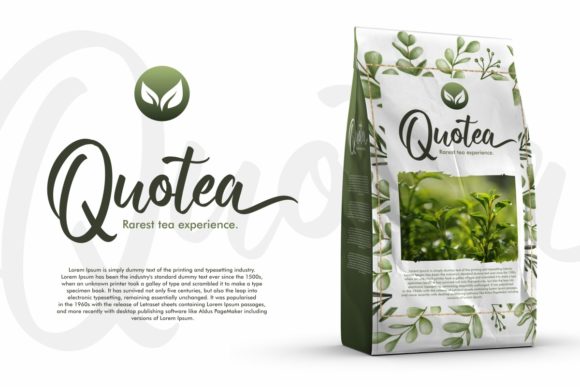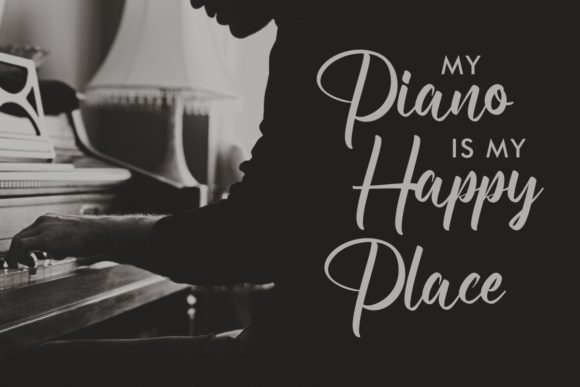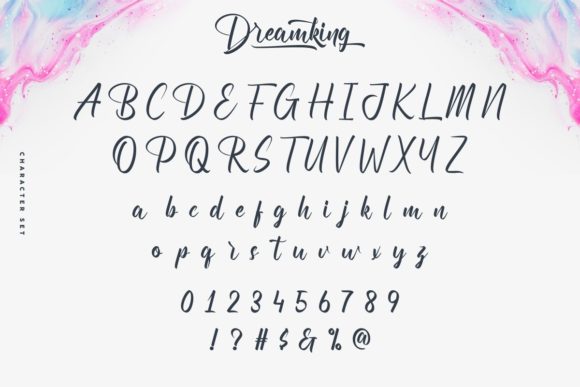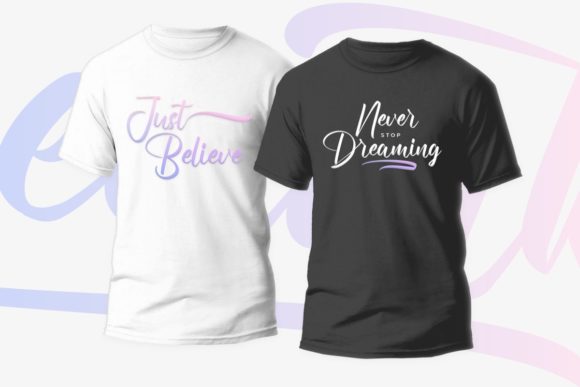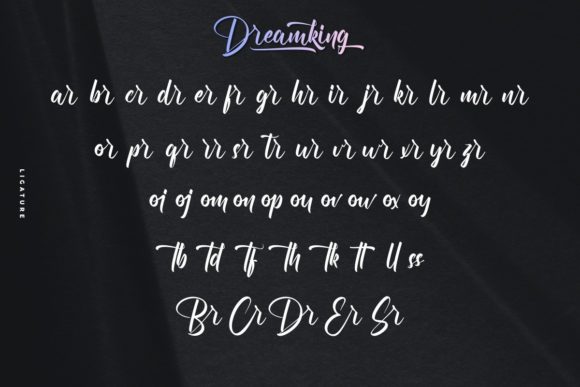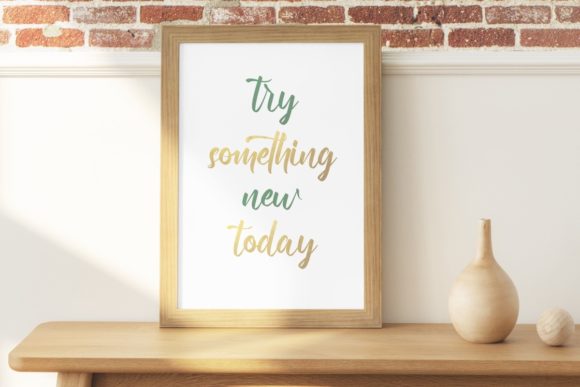
The Dreamking Font: Unlocking Your Creative Potential
There’s nothing quite like the thrill of bringing a creative idea to life. The spark of inspiration, the rush of excitement as you start to sketch out your vision, and the satisfaction of watching it take shape. But sometimes, no matter how hard we try, our designs can feel like they’re missing that special something – a touch of elegance, a dash of whimsy, or a pinch of personality.
That’s where the Dreamking Font comes in. This stunning script font is the perfect addition to any designer’s toolkit, offering a level of detail and craftsmanship that’s simply unmatched. With its PUA encoding, you can access all of the glyphs and swashes with ease, giving you the freedom to create truly unique and eye-catching designs.
Dreamking Font Key Features
- Unique Characteristics: The font features a unique blend of elegant and bold lines, creating a distinctive visual identity that sets it apart from other fonts.
- Kerning and Ligatures: The font includes advanced kerning and ligature pairs, ensuring smooth and even spacing between characters for a professional-looking result.
Dreamking Font Review
Overall, I think the Dreamking Font is an interesting choice for designers looking for a unique, vintage-inspired font. Here are some things that work well:
- ✨ Unique aesthetic: The Dreamking Font has a distinct, retro feel that can add a lot of character to a design. It’s perfect for projects that need a touch of nostalgia or a sense of old-school charm.
- ✨ Good legibility: Despite its vintage vibe, the font is still easy to read, making it suitable for body text or headlines.
- ✨ Versatile: The Dreamking Font comes in a range of weights and styles, allowing designers to experiment with different looks and feels.
- ⚠️ Limited language support: The Dreamking Font may not support all languages, which could be a problem for designers working on multilingual projects.
- ⚠️ Not ideal for small text: The font’s unique style can make it difficult to read in small sizes, so it’s best to use it for headlines or larger body text.
Overall, I think the Dreamking Font is a solid choice for designers who want to add a touch of vintage flair to their projects. While it has some limitations, its unique aesthetic and good legibility make it a worthwhile option to consider.
Practical Application Guide for Dreamking Font
Tips for Getting the Most Out of Dreamking Font
To get the most out of the Dreamking Font, use it in combination with bold or italic styles to create emphasis. You can also use it in conjunction with other fonts to create a unique visual hierarchy.
The Dreamking Font is commonly used in:
- Typography-heavy designs, such as posters and flyers
- Branding and logo design
- Editorial and publishing design
Alternatives to Dreamking Font
Great Vibes is a modern, elegant script font that is perfect for creative and artistic projects. It is ideal for use in logos, headings, and titles where a touch of sophistication is needed. Great Vibes is a more refined and polished alternative to Dreamking Font, with a focus on readability and aesthetics.
Comparison: Great Vibes has a more refined and polished look compared to Dreamking Font, with a focus on readability and aesthetics. It is more suitable for formal and creative projects.
Alex Brush is a beautiful, handwritten script font that is perfect for use in invitations, wedding stationery, and other creative projects. It has a personal and elegant touch that makes it ideal for use in titles and headings. Alex Brush is a more elegant and refined alternative to Dreamking Font, with a focus on sophistication and creativity.
Q: What is the character set of the Dreamking Font?
The Dreamking Font includes a comprehensive character set, covering Latin, Cyrillic, and Greek alphabets. It also includes a range of punctuation marks, numbers, and symbols. This makes it suitable for use in a variety of languages and applications, from body text to display typography.